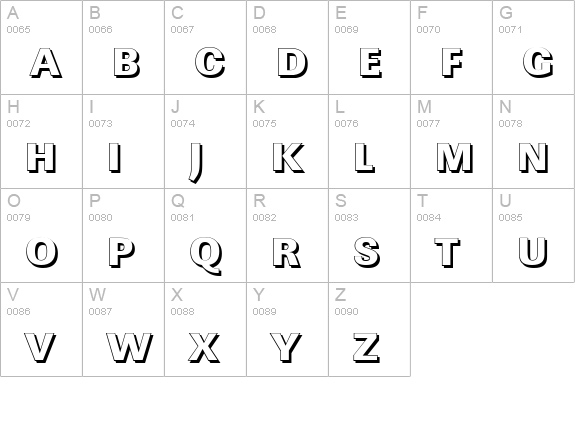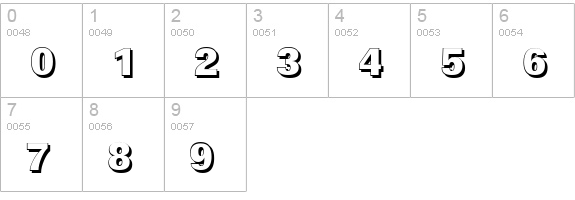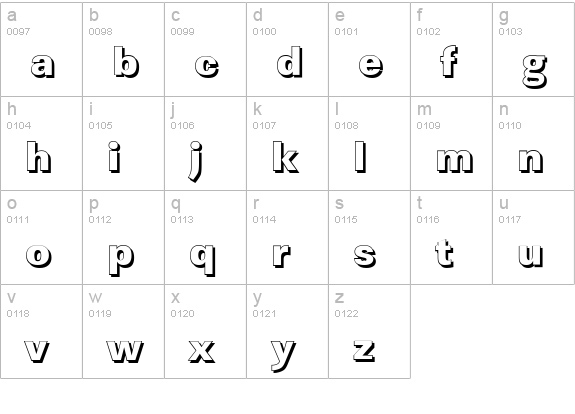
LinearSh-Heavy-Regular is a heavy, high-impact variant in the LinearSh typeface family \xE2\x80\x94 well suited to high-impact headlines, posters, and display advertising.
LinearSh-Heavy-Regular font is a modern and clean typeface designed for various design projects. With its bold and heavy appearance, this font exudes a sense of strength and stability. Whether used for headlines, titles, or branding, LinearSh-Heavy-Regular font commands attention and makes a lasting impact. The font features straight lines and sharp edges, giving it a sleek and professional look. Its versatility allows it to be used across different mediums, from print to digital. LinearSh-Heavy-Regular font is available for free download at FontsMarket.com, making it accessible to designers and creatives looking to add a powerful touch to their projects without breaking the bank. Don't miss out on this fantastic opportunity to enhance your designs with this striking font.